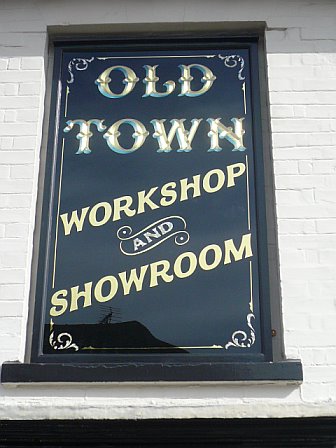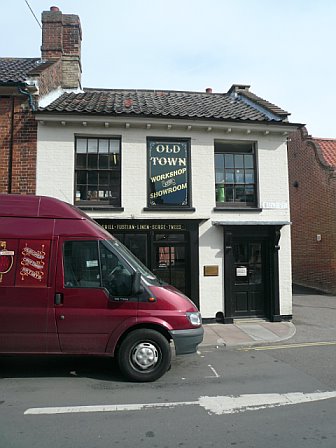
I thought I'd post a picture of a glass sign you may be interested in that we fitted yesterday in Holt, north Norfolk. The customer said he wanted a "high Victorian" sign and I could'nt believe my luck. Wait for a whole career and finally a customer with the right vision comes along. Old Town, the shop make vintage style clothes for men and women, the whole concept is design led and the inside of the shop is a joy to behold with such attention to detail. The interior is also graced by several of Stuart Nortons fantastic brilliant cut mirrors.
For the sign we looked back to the classic Brilliant Sign Co. stock in trade glass tablet signs which were produced in vast numbers between the 1890's and the 1930's. Every high street in the U.K. would of had examples of this sought of work.
The primary letters are carved in wood and gilded behind the glass and the secondary text is mica etched and water gilded.
The scrolls and "and" are in natural red abalone glued to the reverse of the glass.
- shop front
- Old Town glass sign
Do you have close up of the piece before assembly of the front of the glass and the letters?
I did not take any photo's during the making of the sign. I first hand drew a design scanned it in and cleaned it up. Then acid etched the glass and applied the black. Next came the shadows, then gilding and pearl application. The backing board was carved on the cnc with a 150 degree bit then cleaned up with the hand gouges.
I used oak faced MDF which was an offcut from an honours board for this sign.
I have used PVC or HDU in the past too.
I spaced it off the glass by 1/8" when making the wooden frame so that the air can circulate. My longest Known MDF glass fascia sign is 11 years old. The paint has lifted slightly in a corner due to water ingress, but otherwise it still looks good even in our dreadful climate! I'll attempt to post some photos at some point.